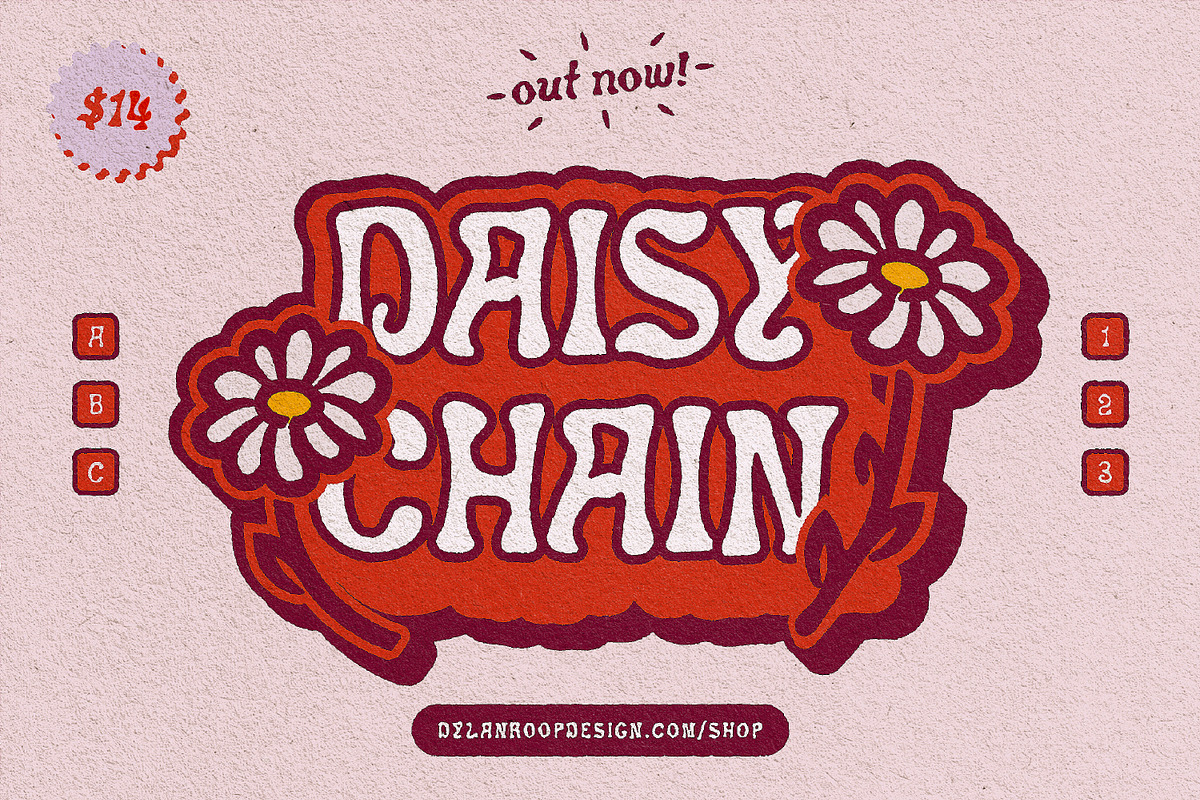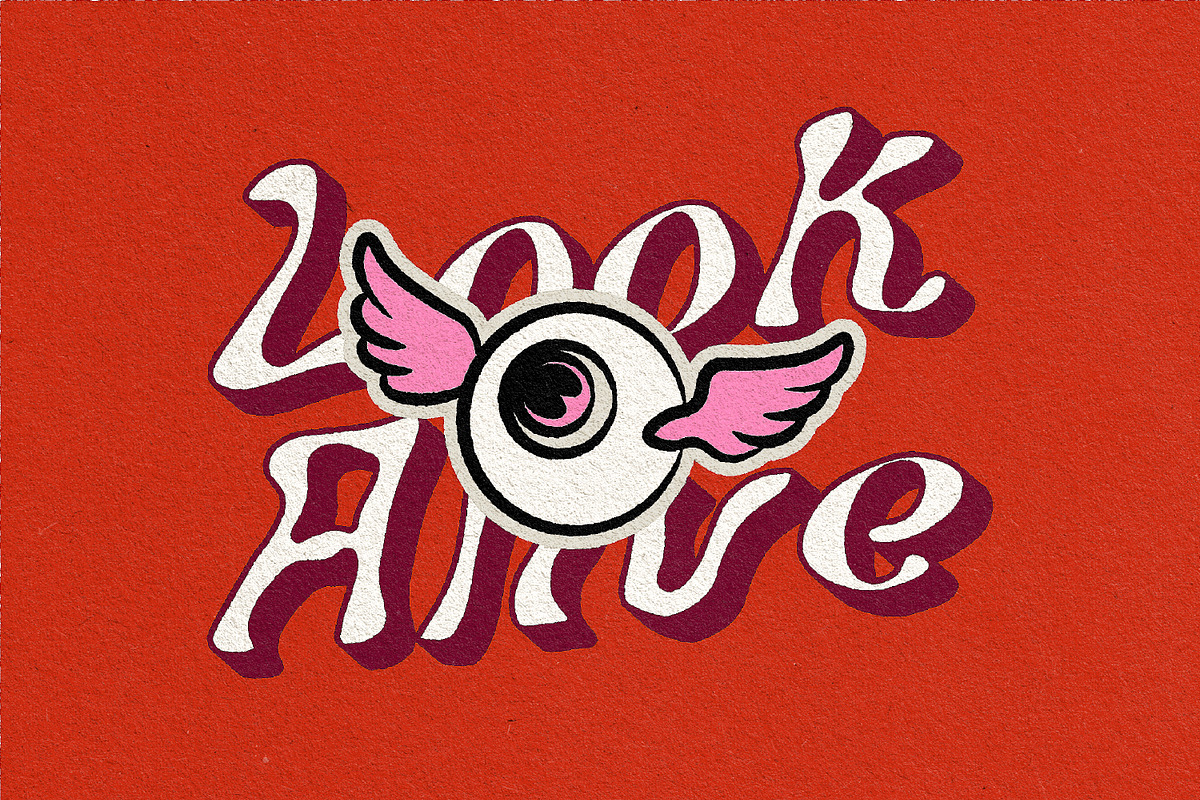
DAISY CHAIN / A Funky Display Face
Introducing DAISY CHAIN! A flowery new font built to help you achieve world peace. Caps and lowercase included, along with multilingual support. 🌼🌻🌼🌻
Designed for funky headlines and indie magazines, Daisy Chain was inspired by vintage band posters and psychedelia. Thank you for looking, Enjoy!
- All caps
- Multiple Languages Supported